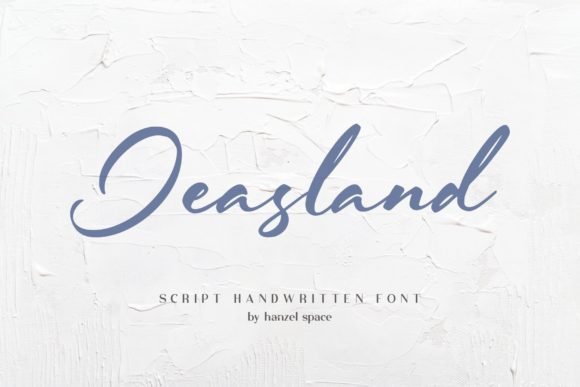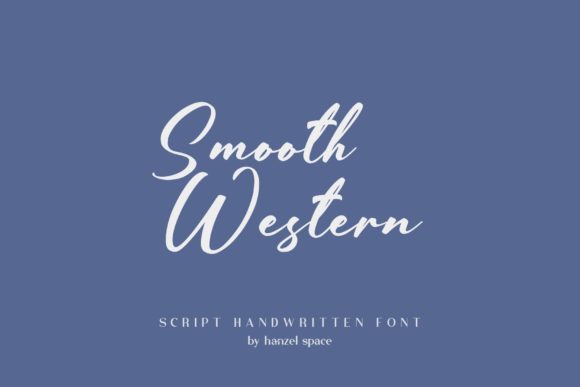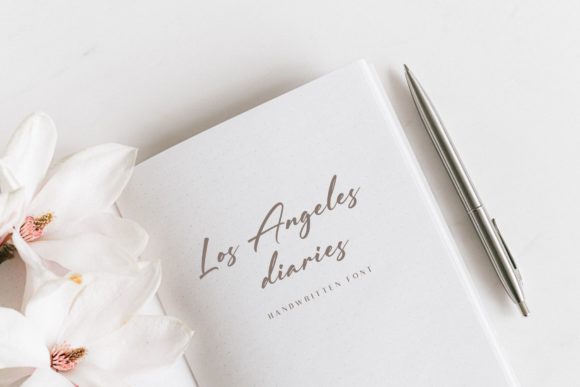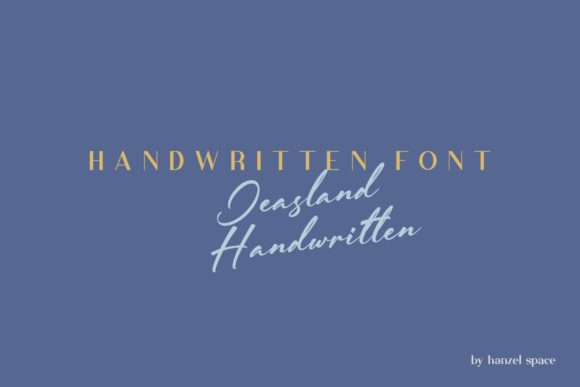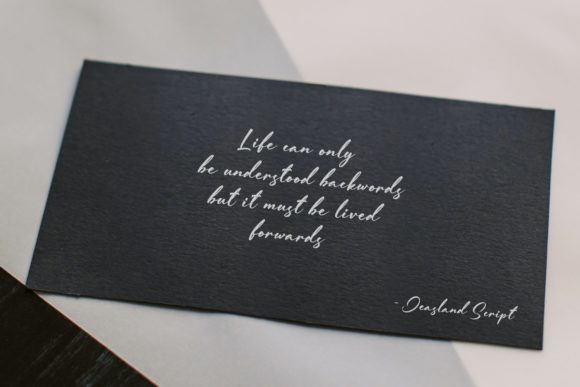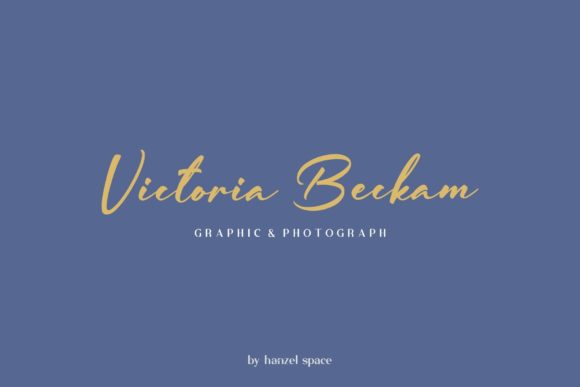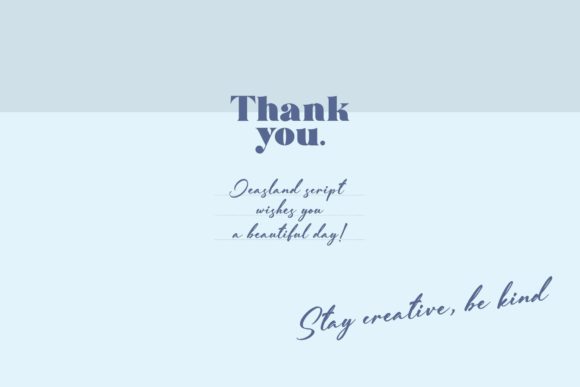
Unleashing Elegance: The Allure of Jeasland Script Font
As designers, we’ve all had those moments when we’re stuck in a creative rut, searching for the perfect font to elevate our designs. Perhaps it’s a wedding invitation, a branding logo, or a heartfelt letter – whatever it is, the right font can make all the difference. That’s where Jeasland Script Font comes in – a delicate and beautiful script font that adds a touch of sophistication to any design.
Designed to provide a refreshing look for designers, Jeasland Script Font is perfect for those who crave elegance and class in their work. This lovely font is crafted to add a personal touch to any project, making it a valuable asset for designers who want to stand out from the crowd. Whether you’re a seasoned pro or just starting out, Jeasland Script Font is sure to become a favorite in your design arsenal.
Jeasland Script Font Key Features
- Font Style: Elegant, cursive script font with a touch of modernity
- Unique Characteristics: Distinctive ligatures, swashes, and flourishes add a touch of sophistication and elegance to any design
Review of Jeasland Script Font
Overall, I’d say Jeasland Script Font is a solid choice for designers looking for a elegant, handwritten font. It’s got a ✨ certain charm to it that’s perfect for creating a warm, inviting atmosphere in your designs.
- ✨ Elegant, cursive feel that’s perfect for creative projects
- ✨ Wide range of weights and styles to choose from, including bold and light options
- ✨ Supports a variety of languages, making it a great choice for international projects
That being said, there are some limitations to consider:
- ⚠️ Not as versatile as some other script fonts on the market
- ⚠️ May not be the best choice for projects that require a lot of text or dense content
- ⚠️ Some characters may not be as smooth or refined as others
Overall, I’d give Jeasland Script Font 3.5 out of 5 stars. While it’s a solid choice for designers, it’s not perfect and may not be the best fit for every project. However, if you’re looking for a elegant, handwritten font with a lot of character, it’s definitely worth considering.
Jeasland Script Font is perfect for adding a touch of elegance to your Canva projects, such as wedding invitations, social media graphics, or promotional materials.
Jeasland Script Font is ideal for creating custom logos, typography-based art, or adding a personal touch to your Adobe projects.
Jeasland Script Font is perfect for adding a touch of sophistication to your presentations, reports, or documents.
Jeasland Script Font is versatile and can be used in various contexts, including:
– Social media graphics and promotional materials
– Custom logos and typography-based art
– Presentations and reports
The Jeasland Script Font is a beautiful, elegant script font used for various design purposes. However, it may not be the best fit for every project. Here are some alternatives that designers can consider:
Carolyna Pro is a modern script font designed for use in branding, advertising, and editorial design. It has a more refined and sophisticated look compared to Jeasland Script Font. Carolyna Pro is ideal for projects that require a high-end, luxurious feel. It is available in multiple weights and has a wide range of language support.
Comparison: Carolyna Pro has a more polished and refined look compared to Jeasland Script Font. It is better suited for high-end branding and advertising projects.
Great Vibes is a stylish and elegant script font perfect for creating eye-catching headlines and titles. It has a more playful and energetic feel compared to Jeasland Script Font. Great Vibes is ideal for projects that require a fun and youthful vibe. It is available in multiple weights and has a wide range of language support.